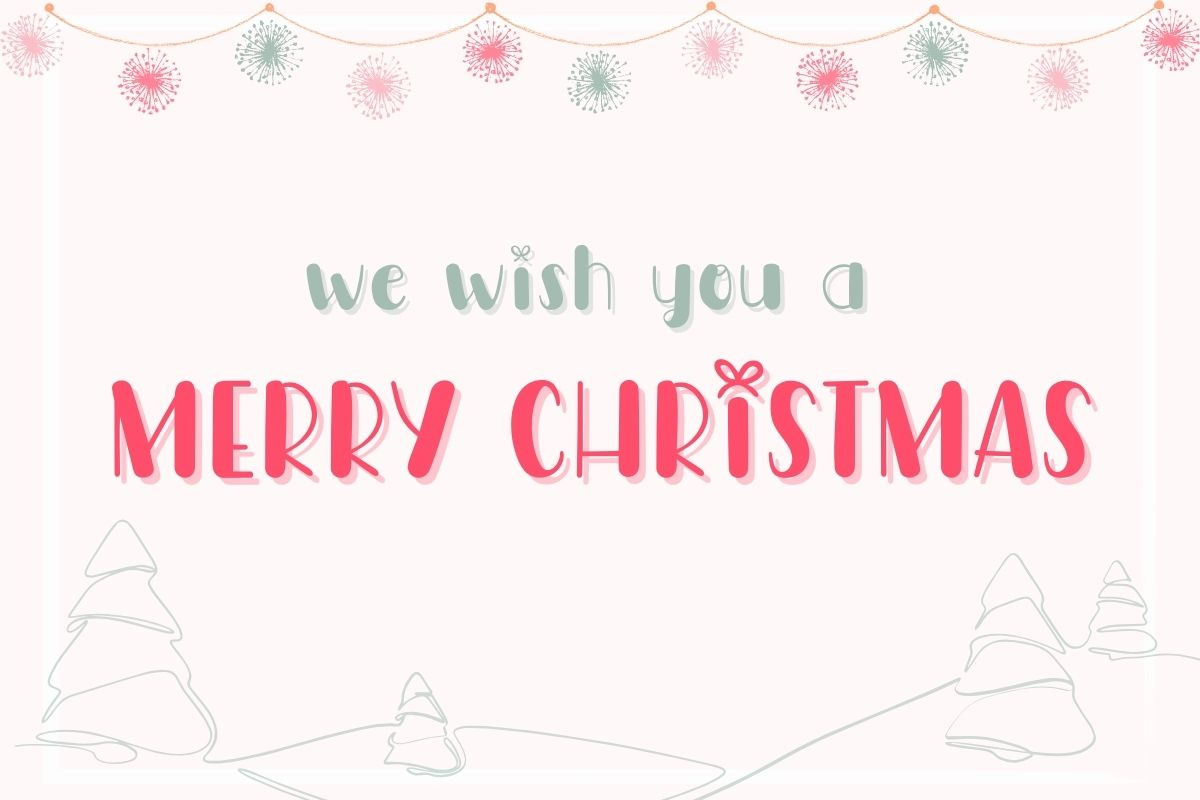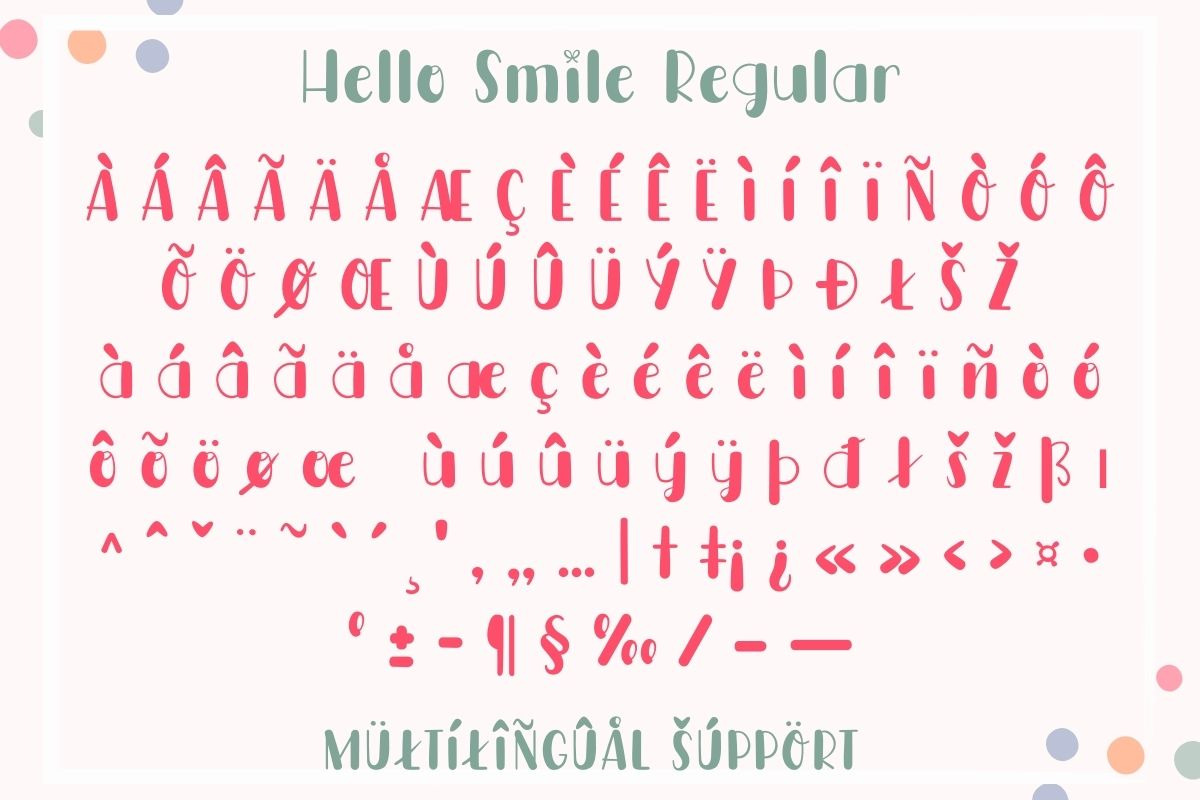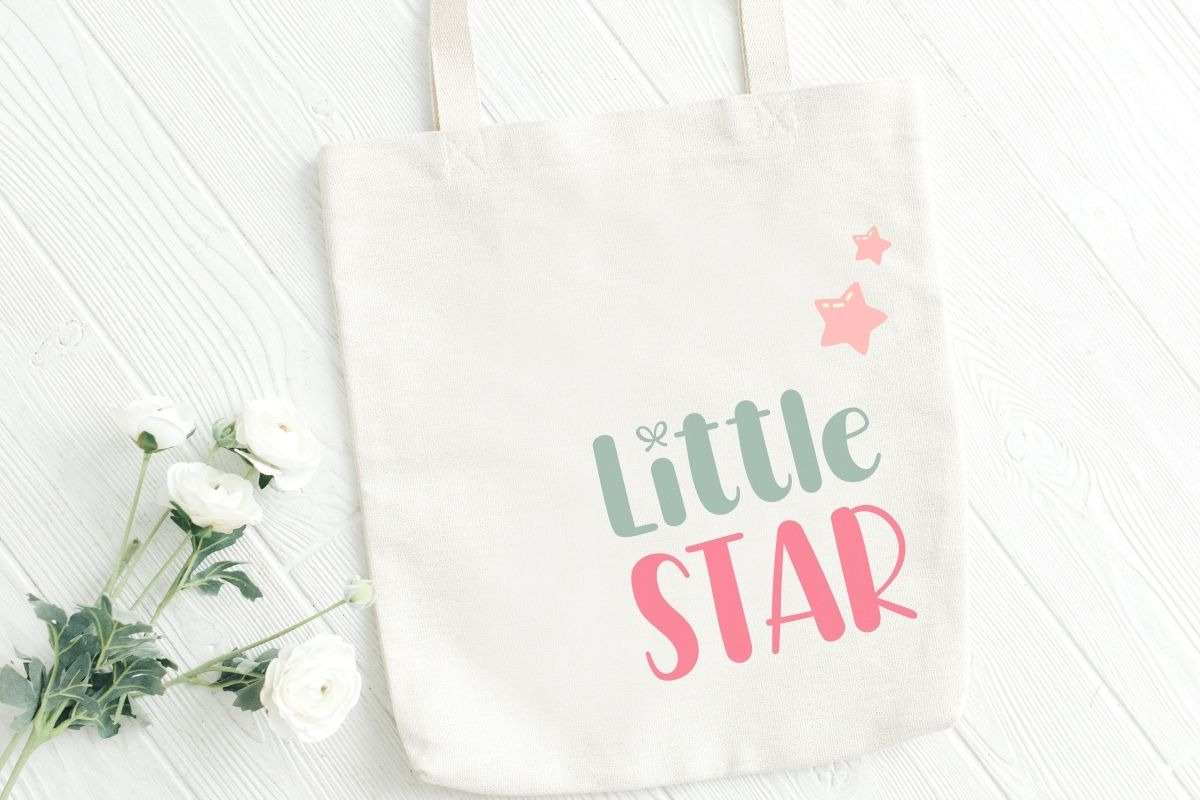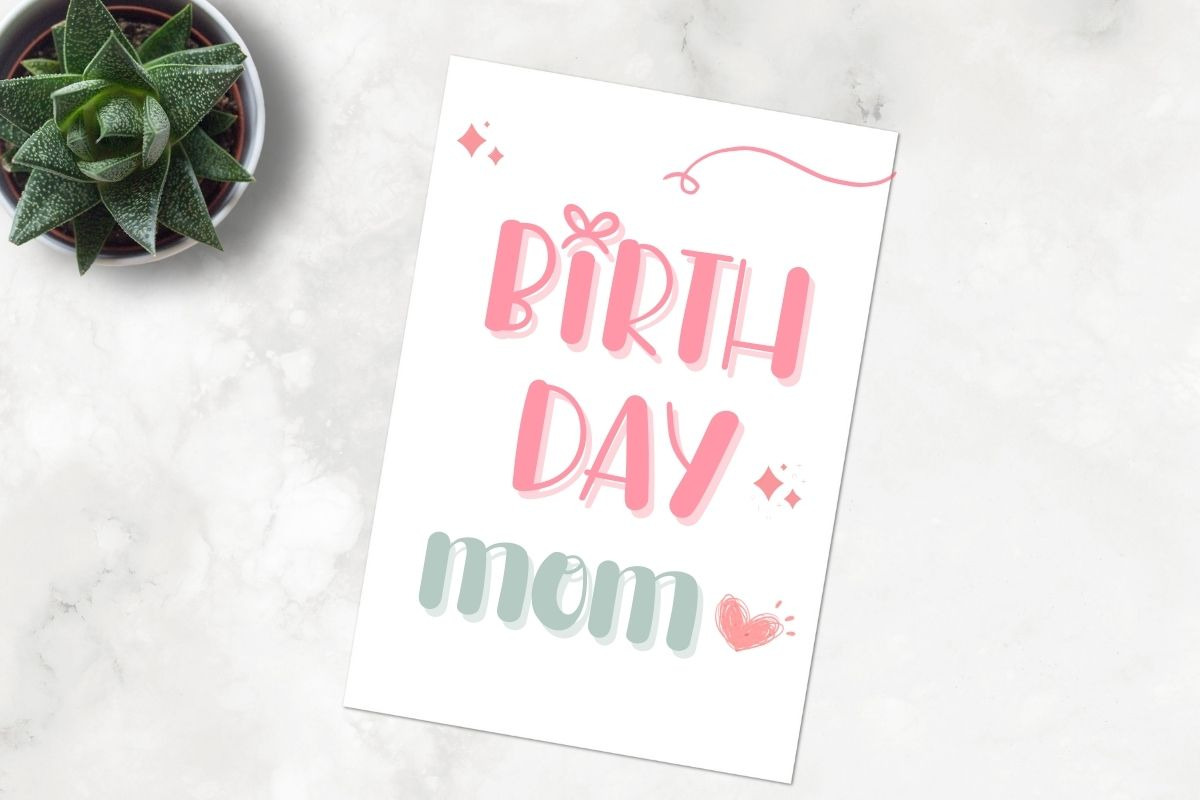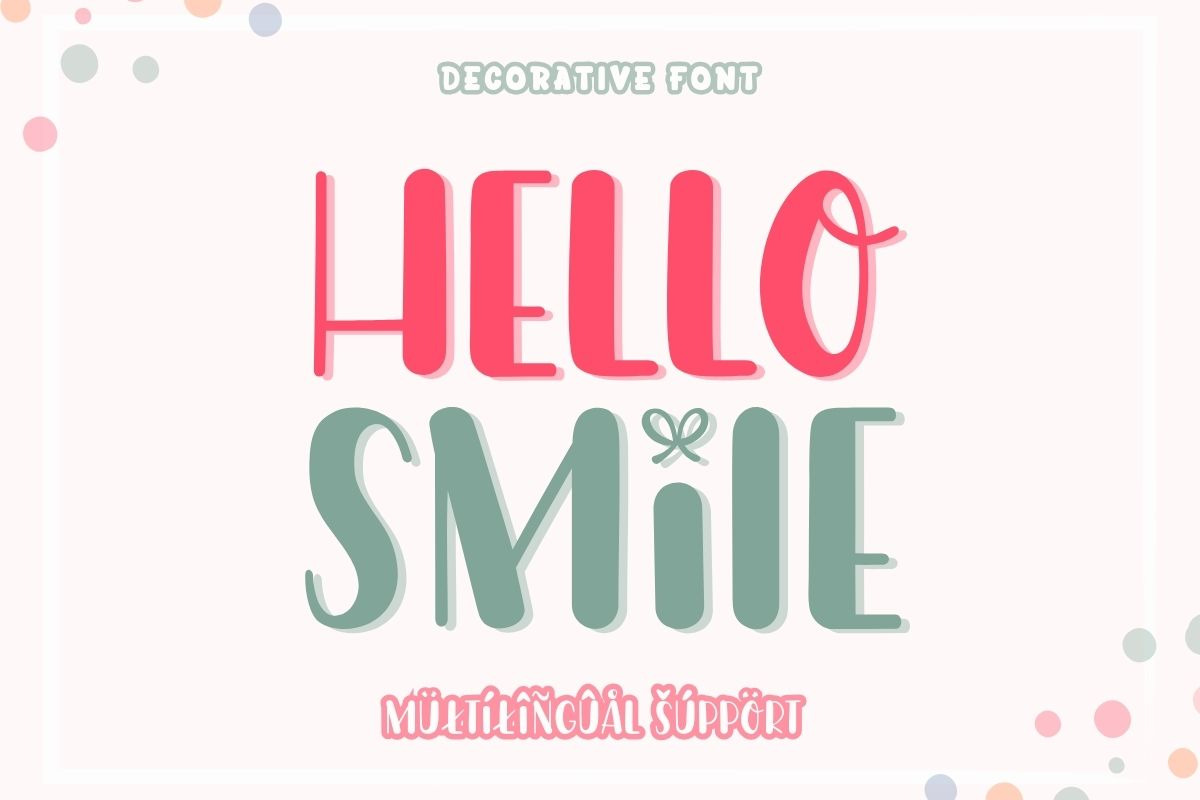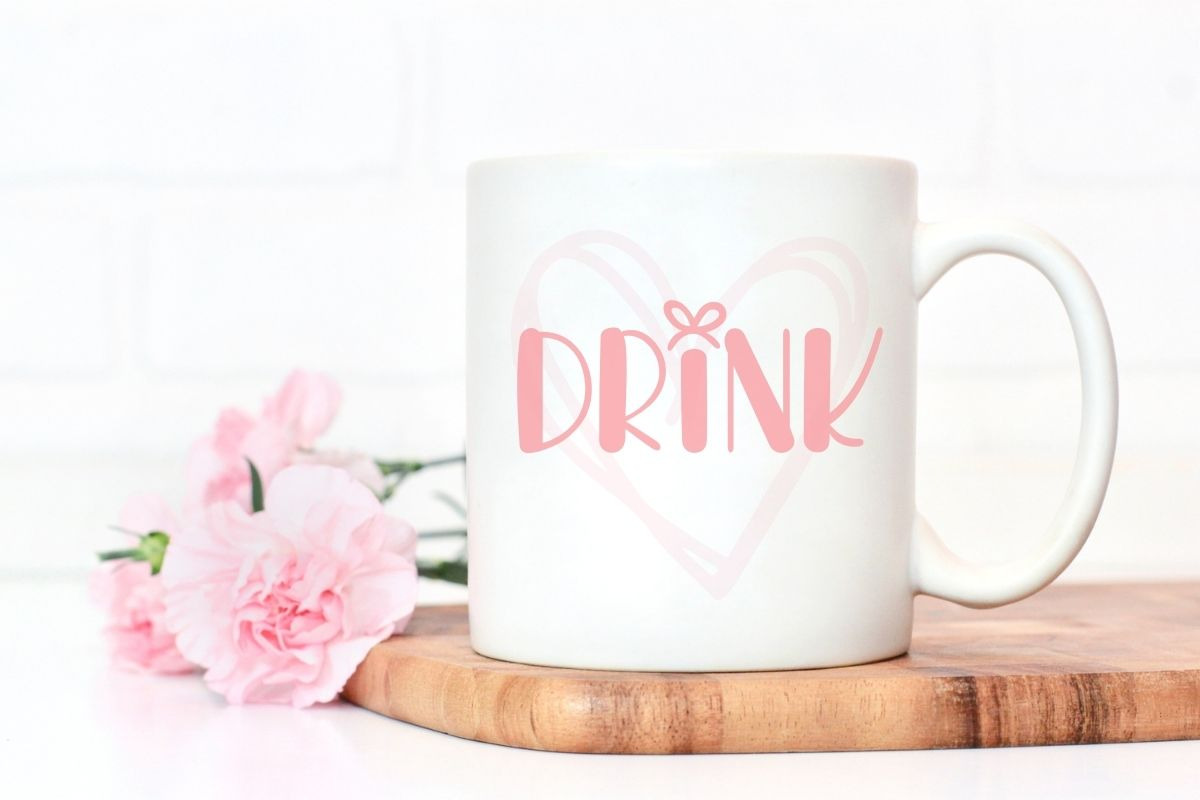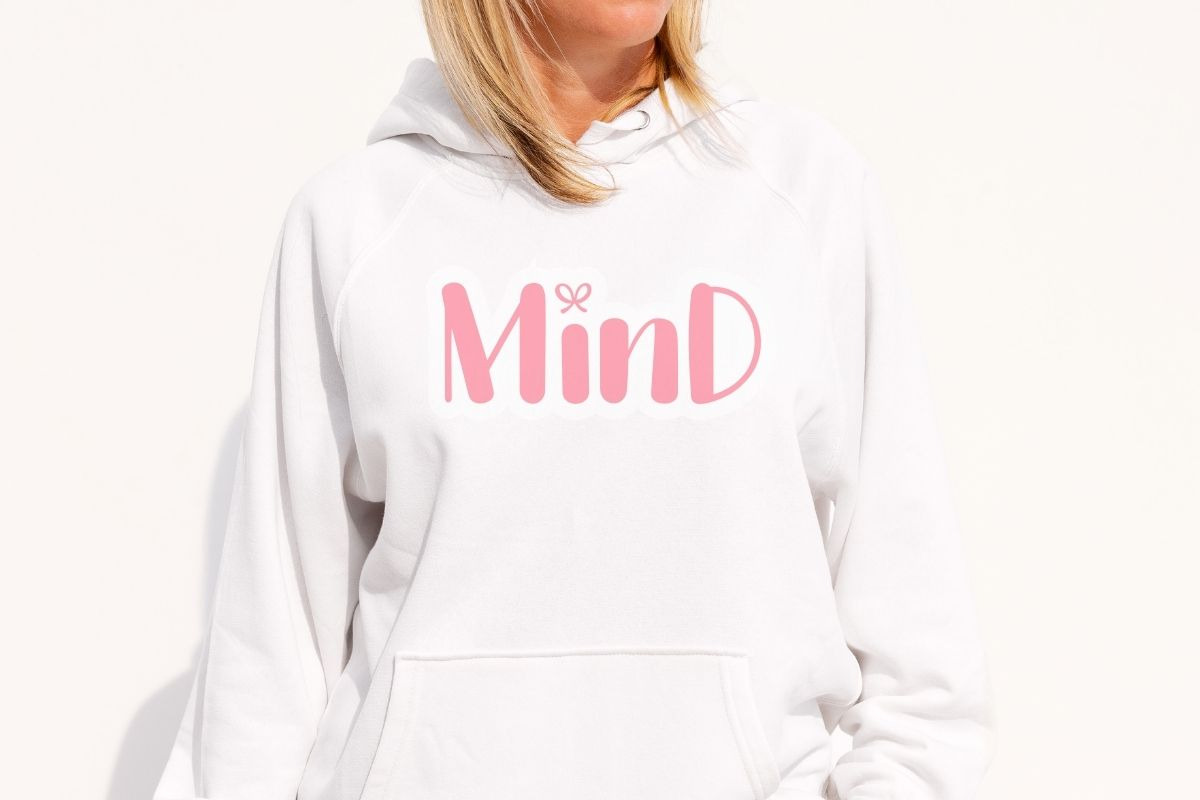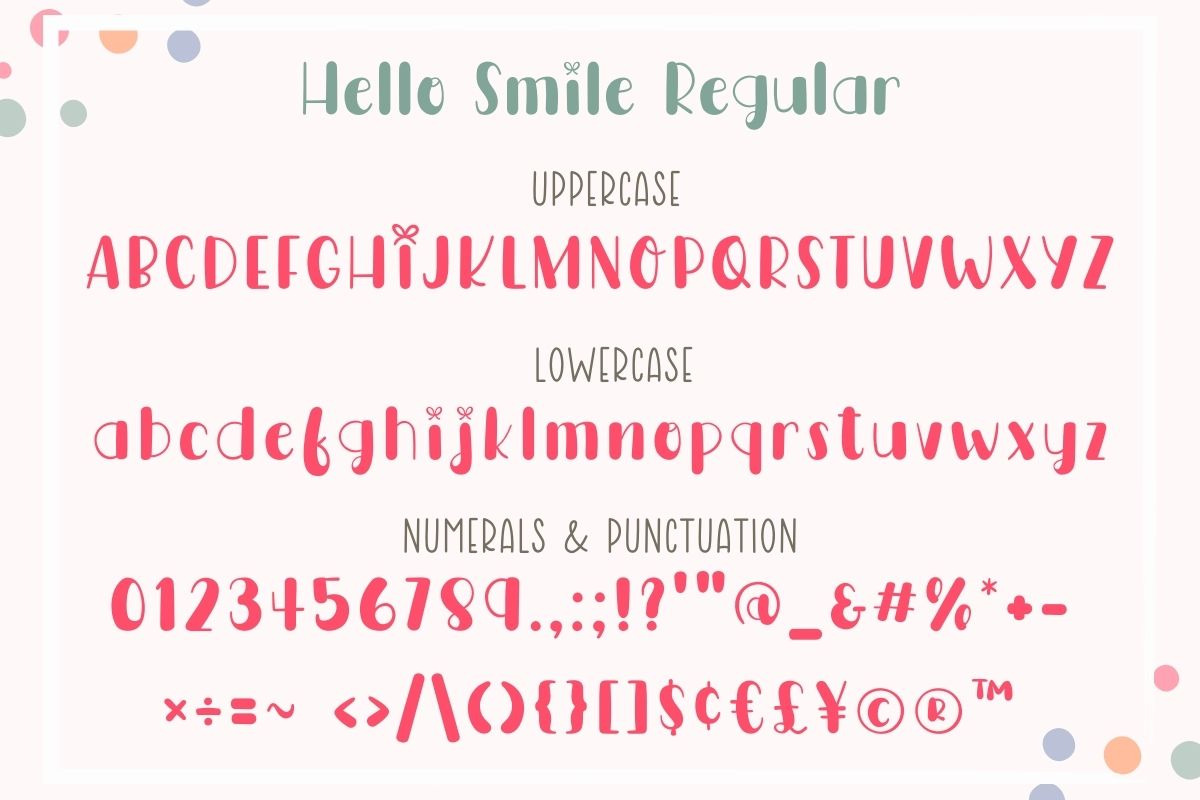
Hello Smile - Handwriting Font
Hello Smile is a lovely display font. You can design it to match all your Christmas-themed projects. This font has a cute and quirky style. Perfect for creating new designs to match products such as banners, content, mugs, cards, shirts, stationery, social media posts, and more! Support Multilingual!